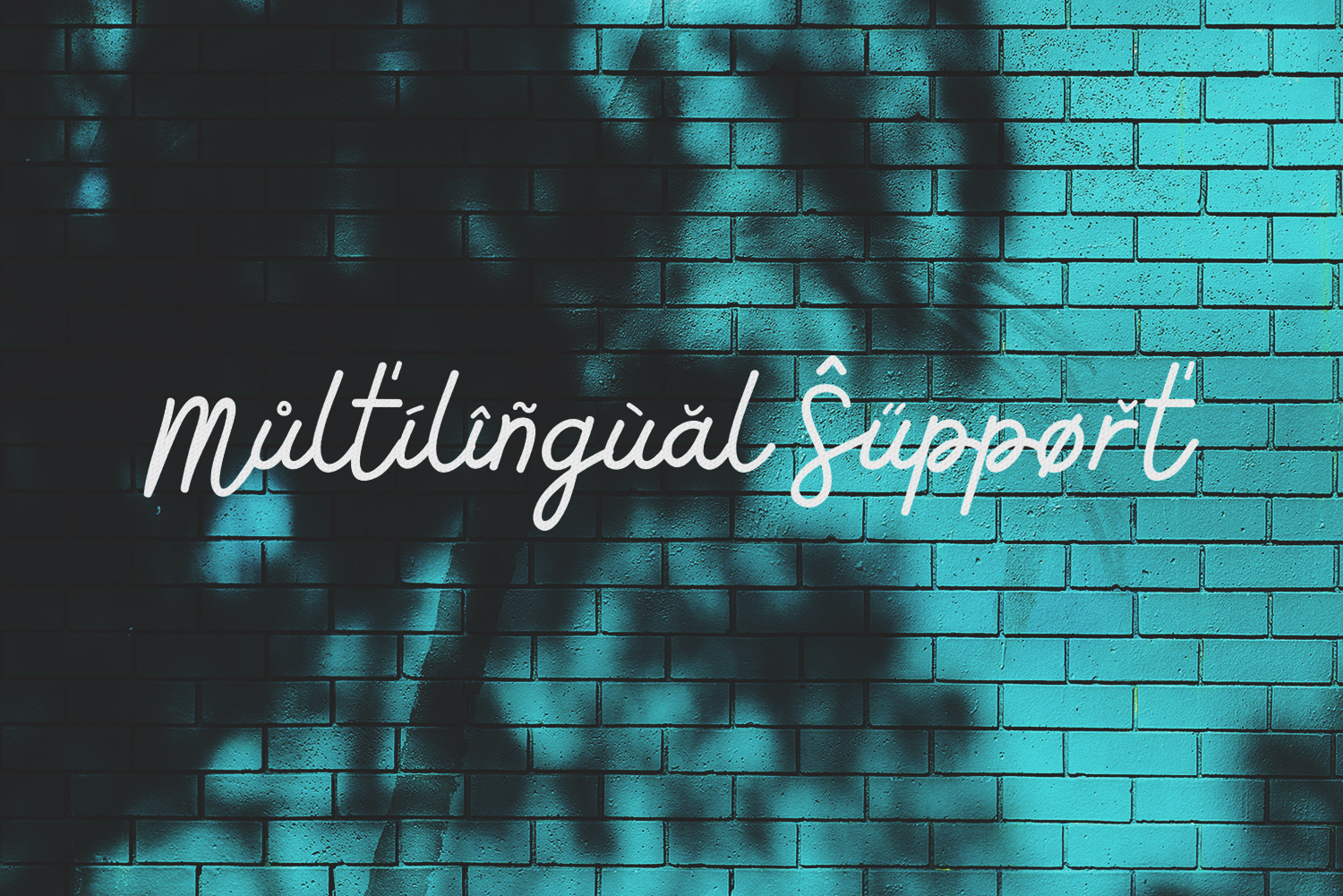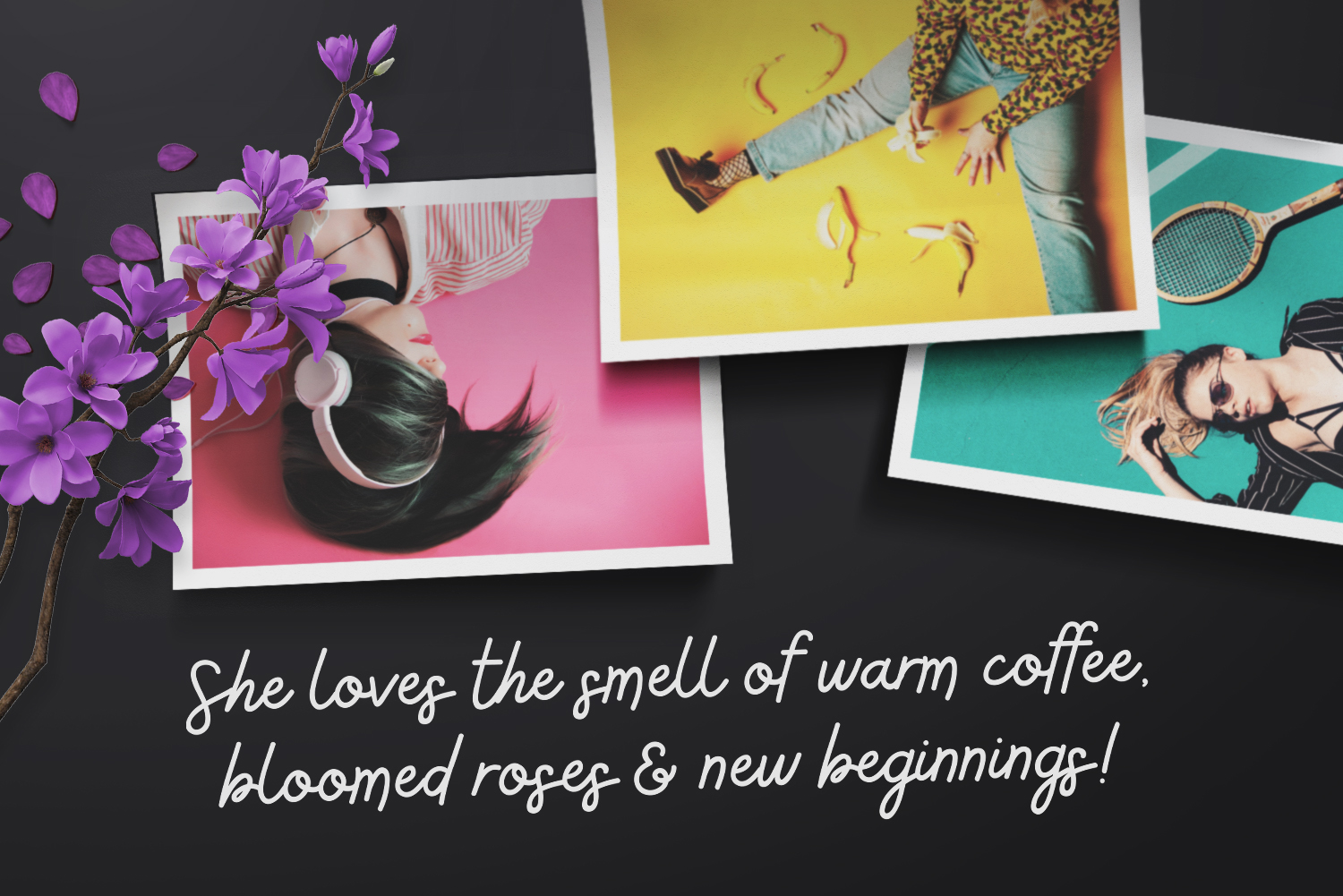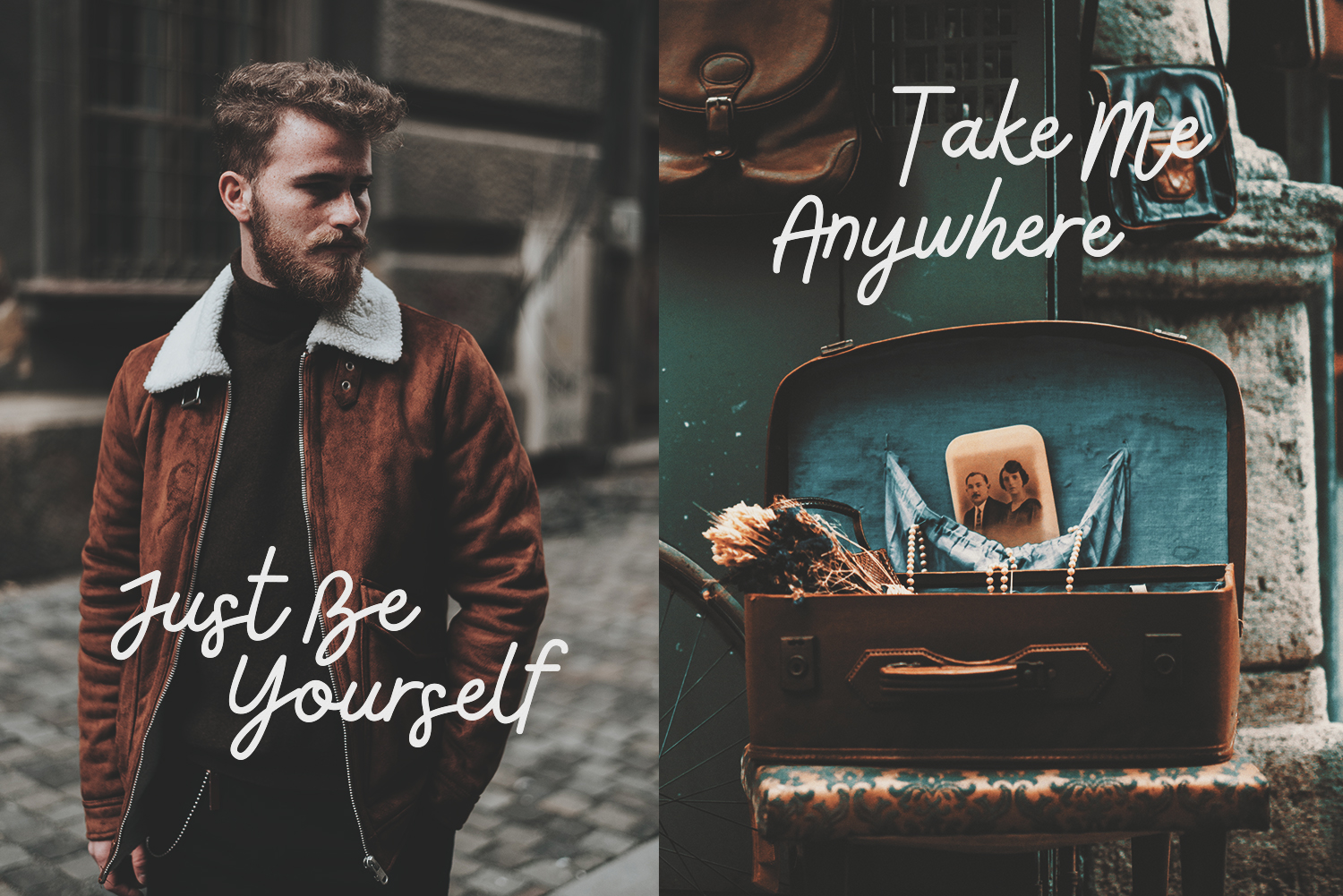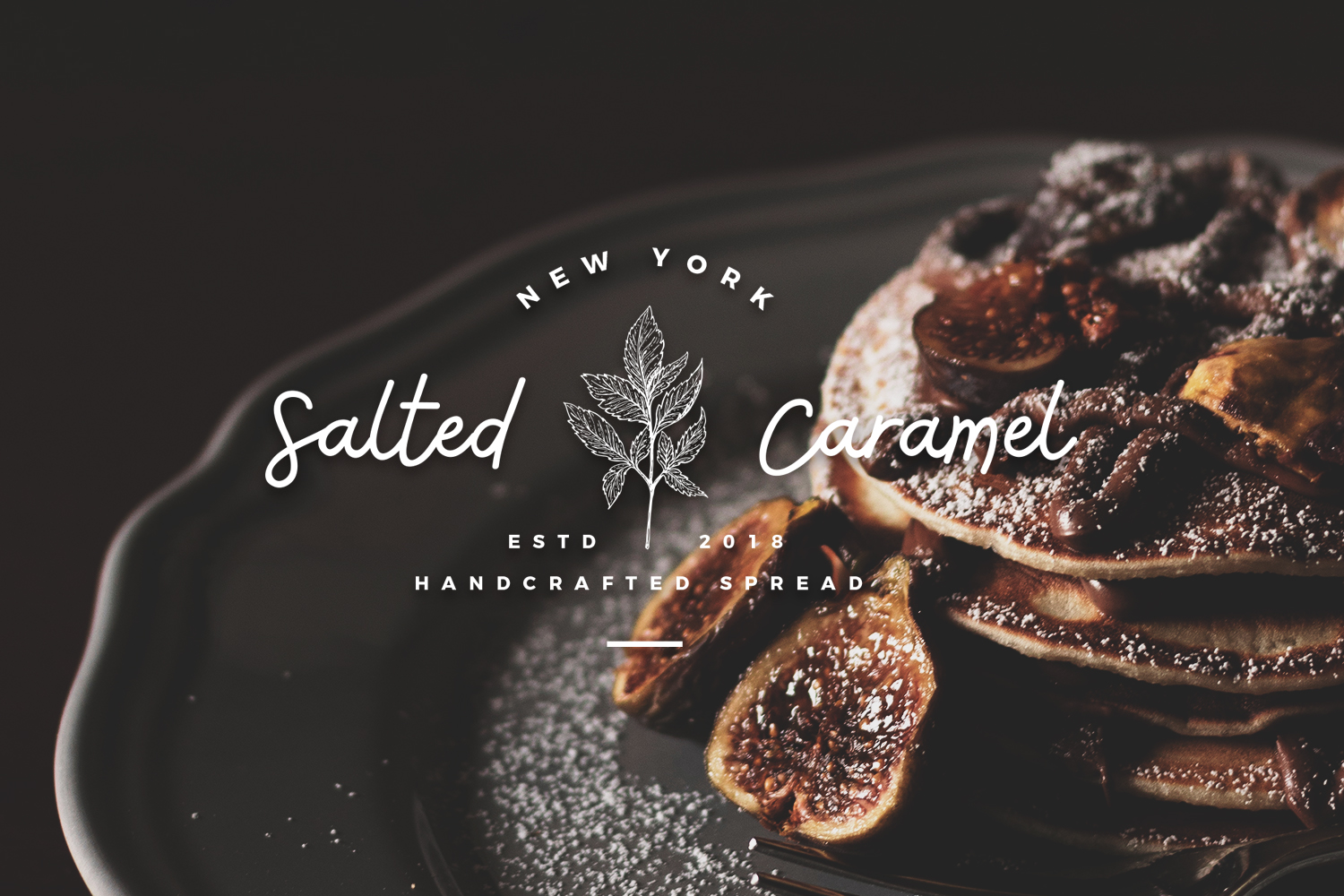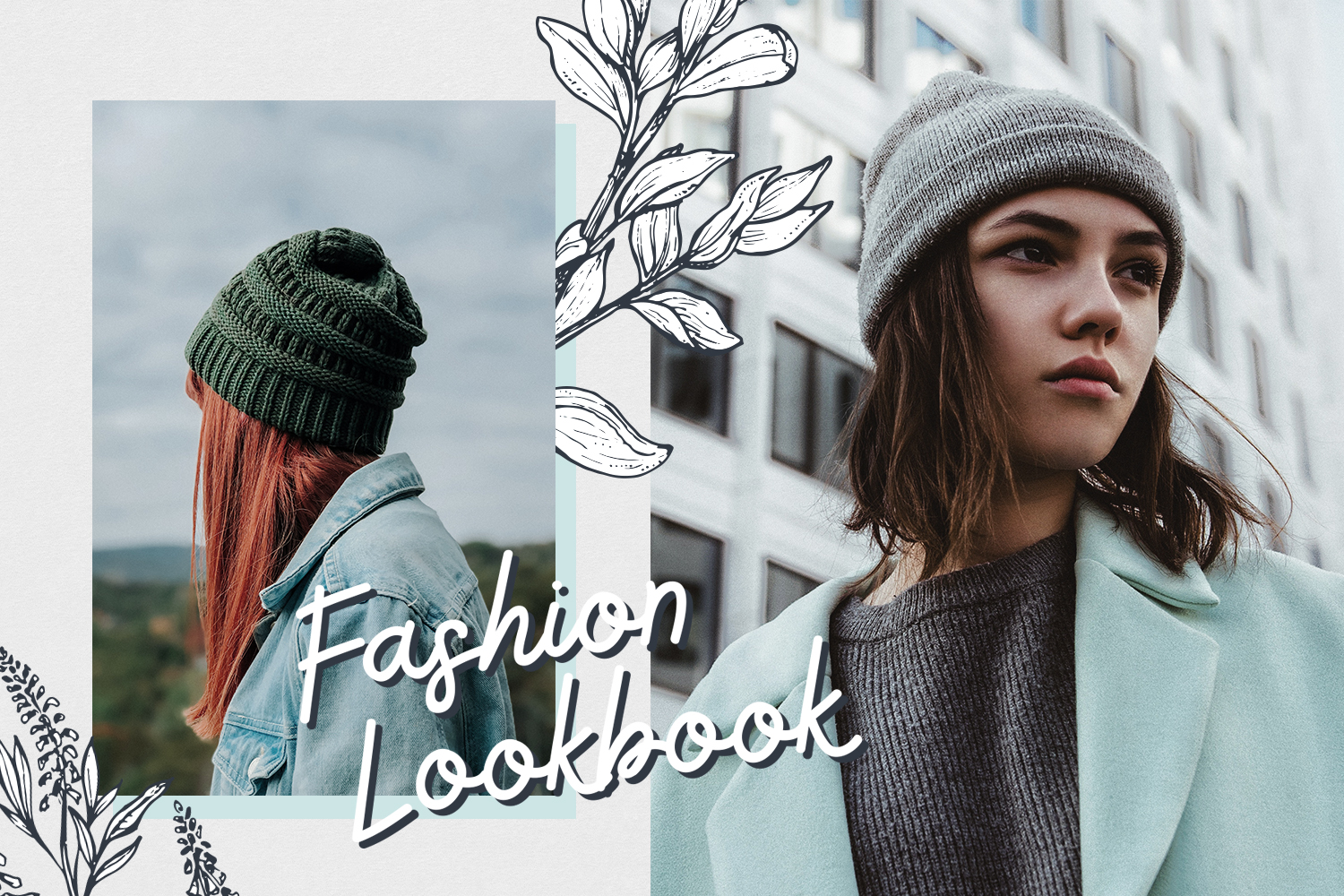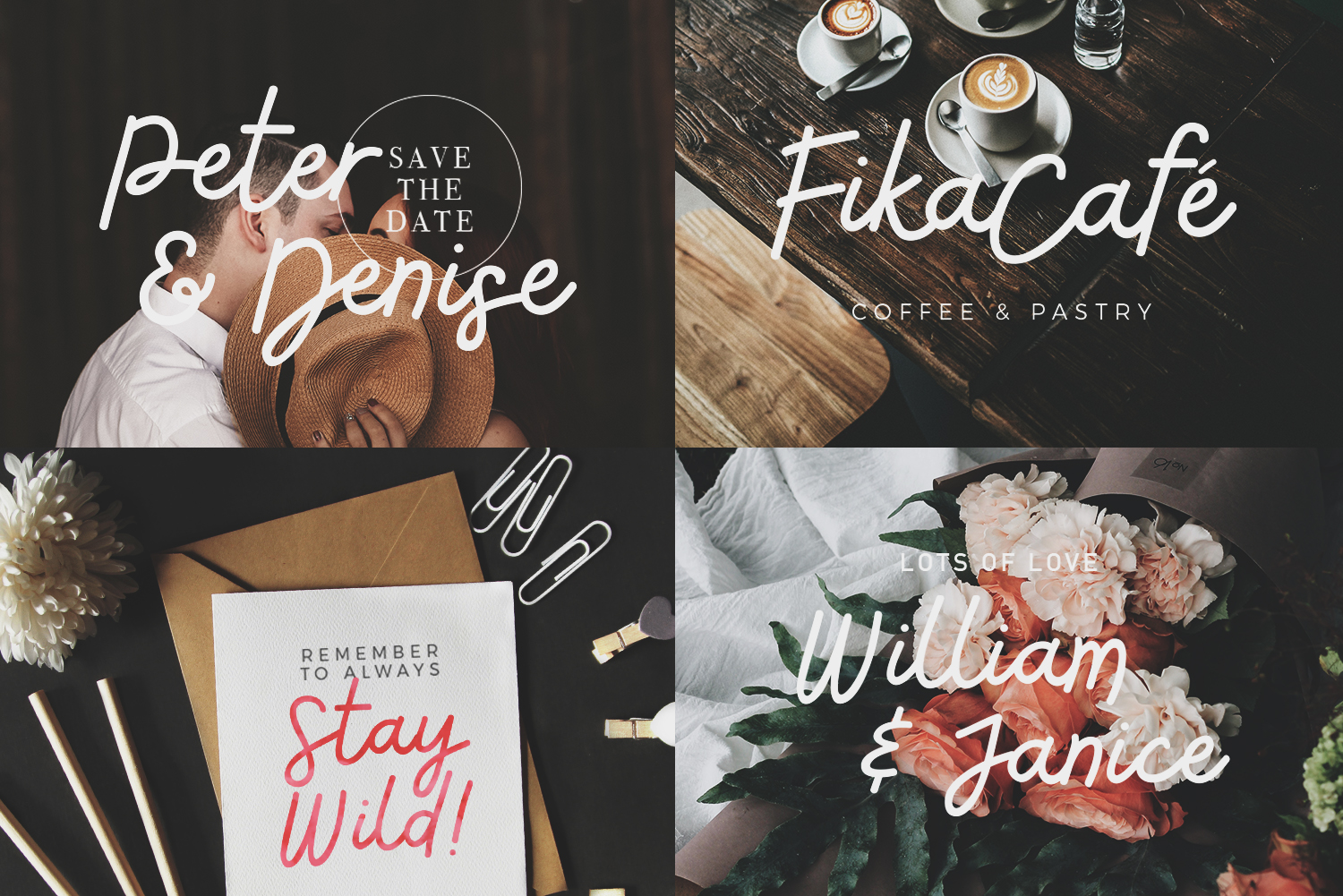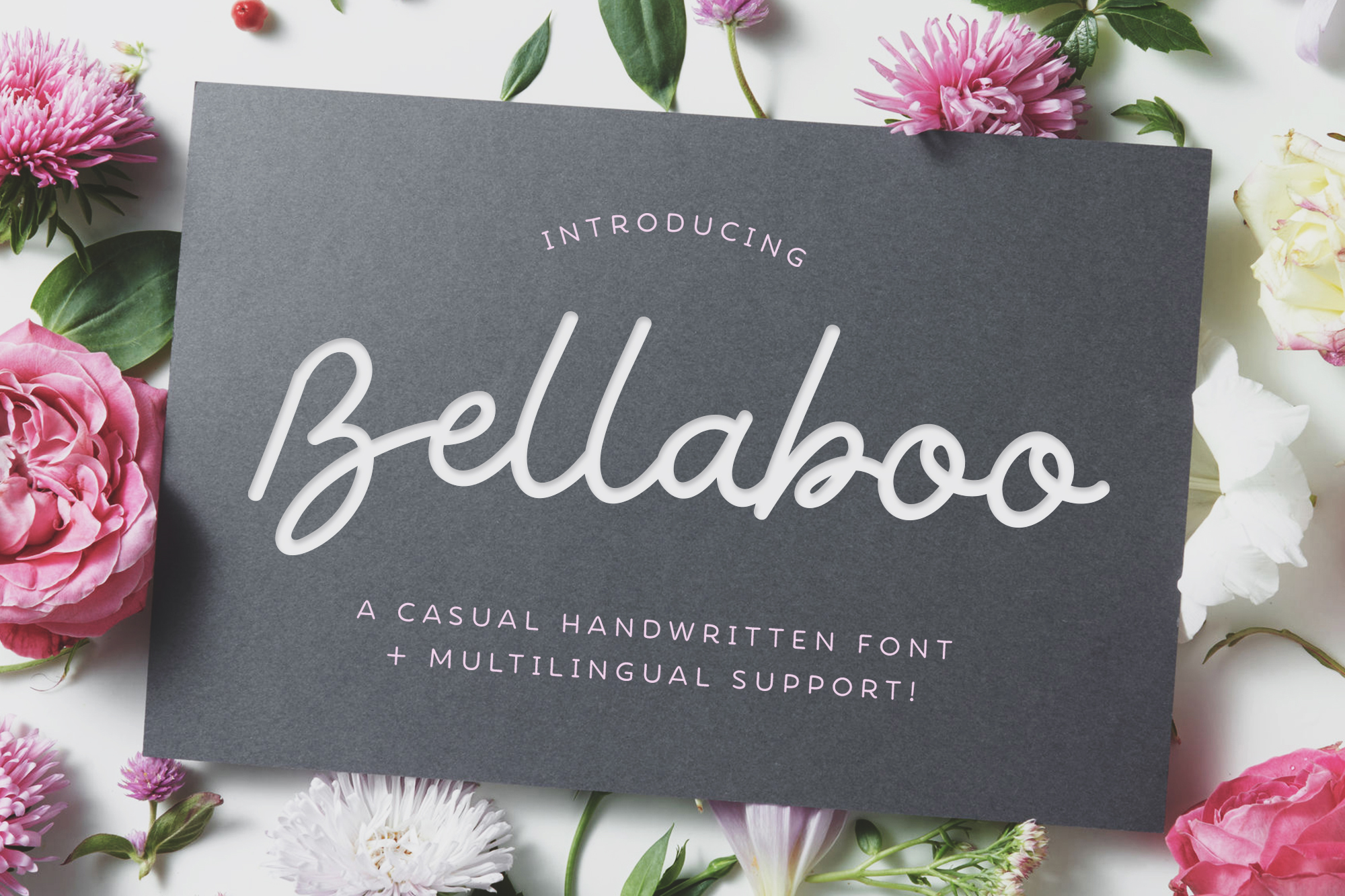
Bellaboo is a handwritten signature script font.
It’s perfect for logos, blog headers, wedding invitations, branding, t-shirts, posters & many more type of projects!